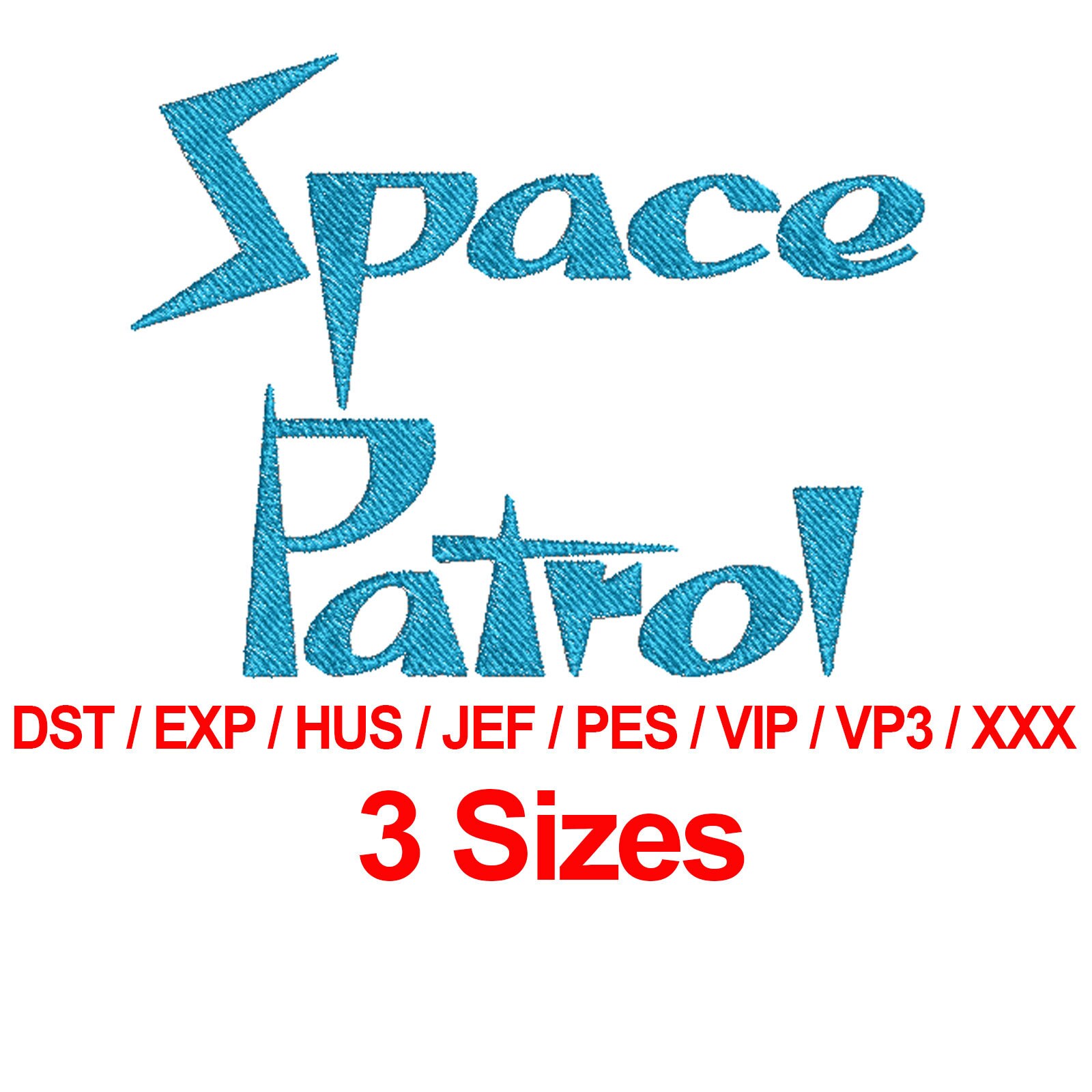
Space patrol font is a fancy, cartoon font designed by nicks fonts. Space patrol à € by nick's fonts in fancy > cartoon 267,593 downloads (3 yesterday) 4 comments 100% free download donate to author Download space patrol font for free and create outstanding typography.